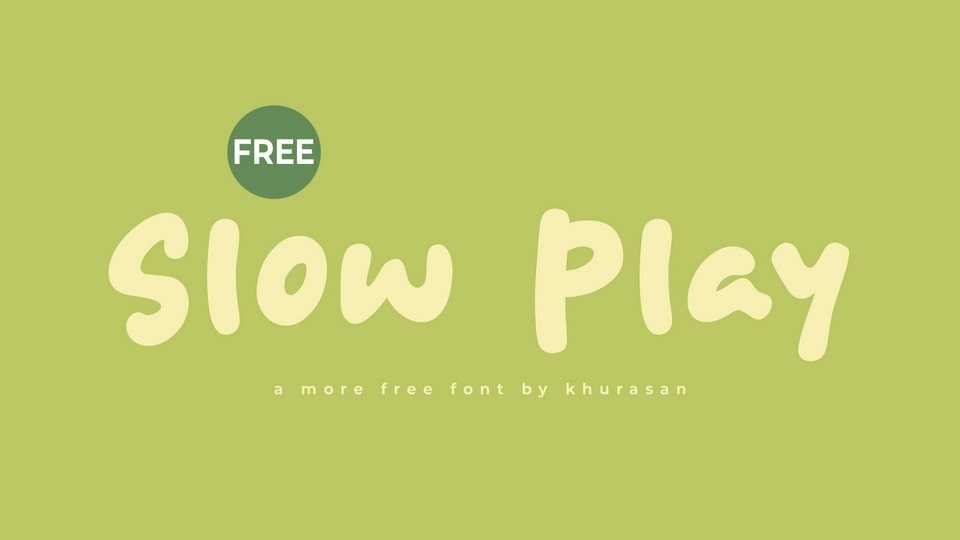
Download Slow Play font, a relaxed, hand-drawn typeface that embraces simplicity, softness, and calm. Its smooth, natural strokes give it an easygoing personality.